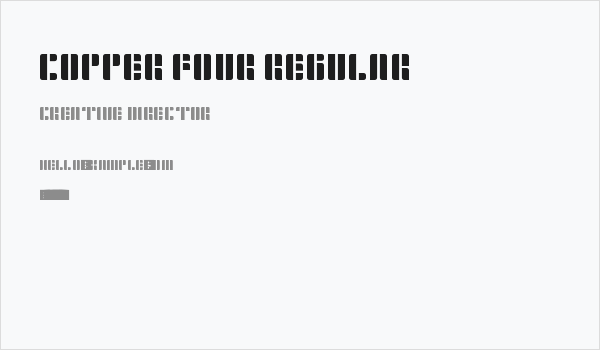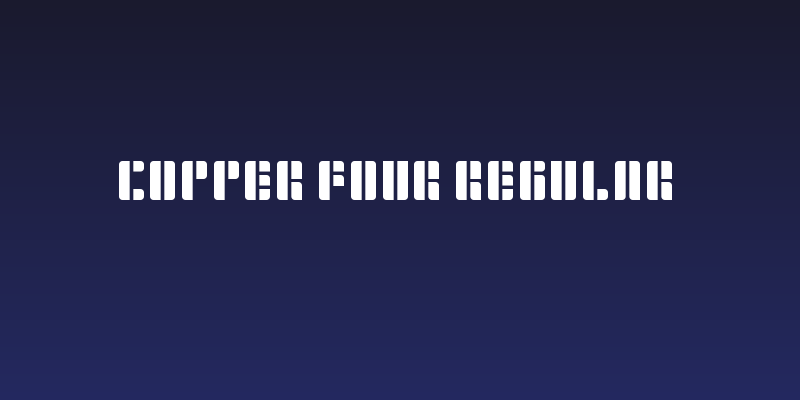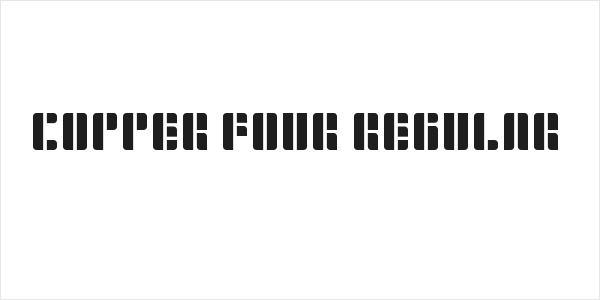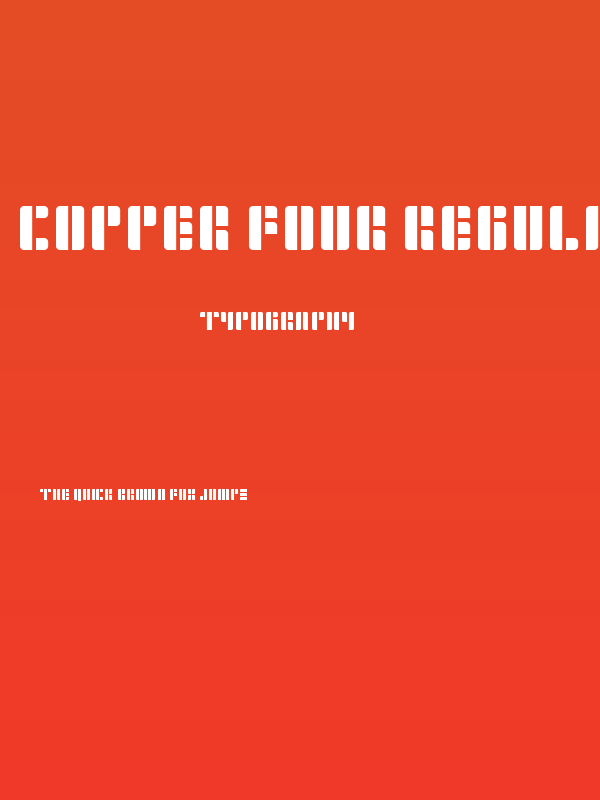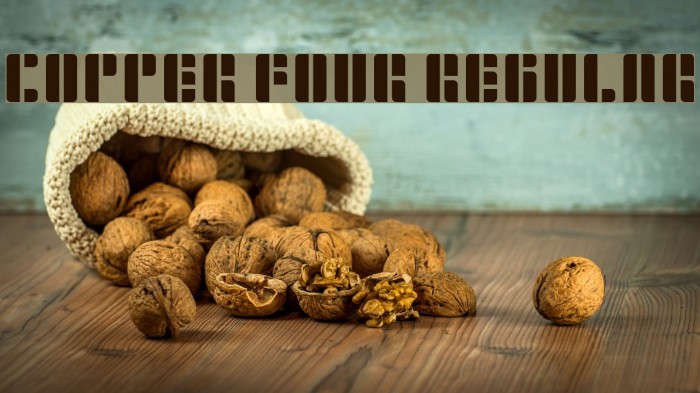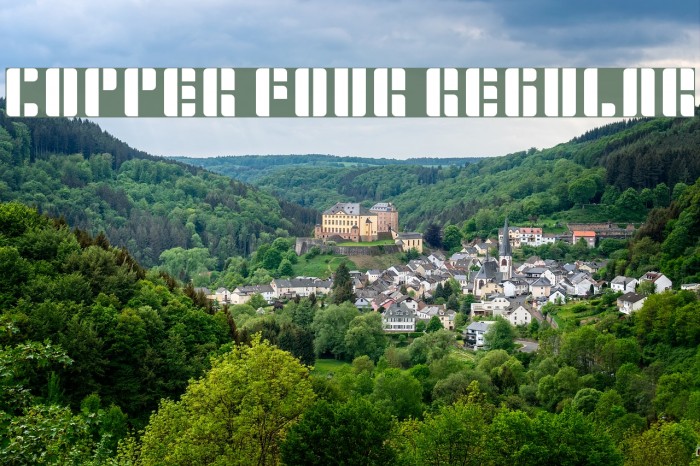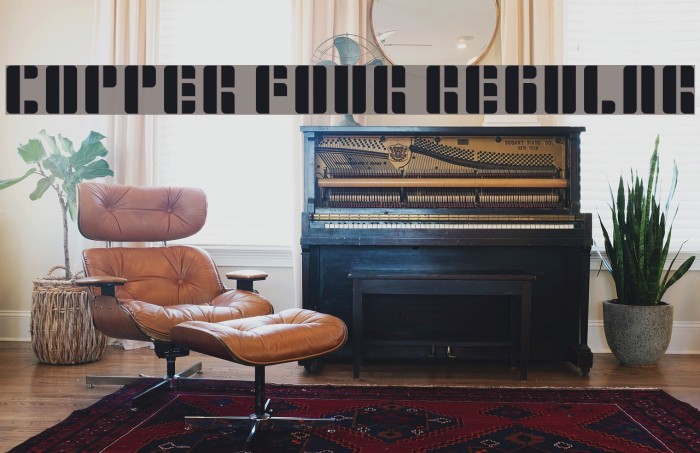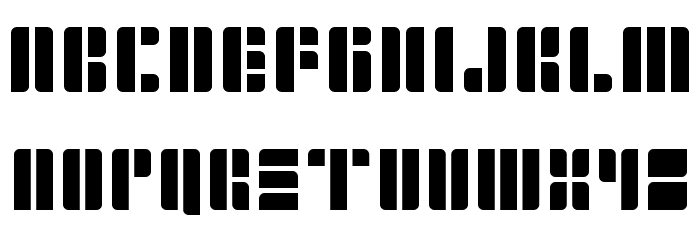
Copper Four Regular Font
Copper Four Regular Description
This font exhibits a bold, geometric style with a strong emphasis on block-like shapes. Each character is constructed with uniform thickness, creating a cohesive and striking appearance. The design is reminiscent of stencil or industrial typefaces, with a modern twist that makes it suitable for eye-catching displays. The uppercase and lowercase letters maintain a consistent width, contributing to the font's uniformity. The numerals and special characters follow the same design principles, ensuring a harmonious look across all glyphs. Its bold presence makes it ideal for projects that require a strong visual impact.
| Proposed Projects | Ideal for posters, logos, branding, and any project needing a strong, modern aesthetic. |